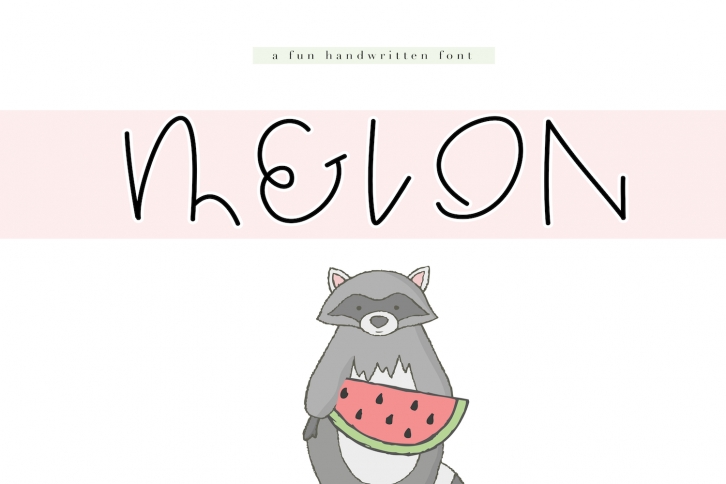
Melon - A Quirky Handwritten Font Download
Melon is a beautiful font that was designed by KA Designs. It's a great choice for designers and creatives who need such a font. It was released on January 10, 2019 and the file size is 21.78 MB. Melon may give a more youthful, expressive and casual look to your project. It is a very beautiful, refined, elegant, and high-quality font.